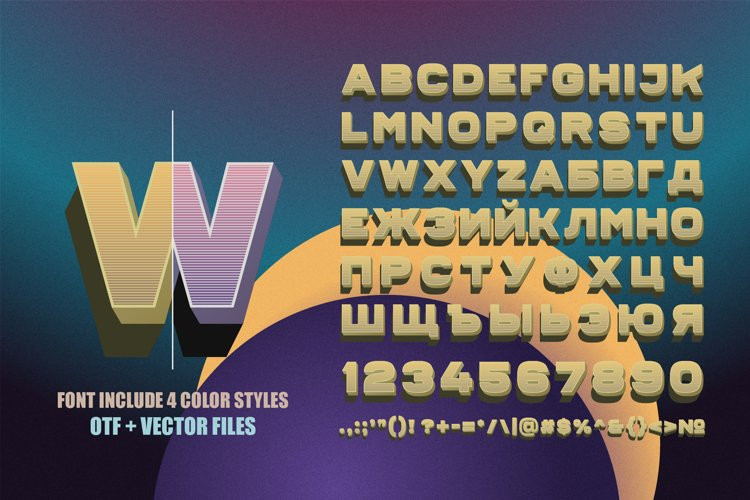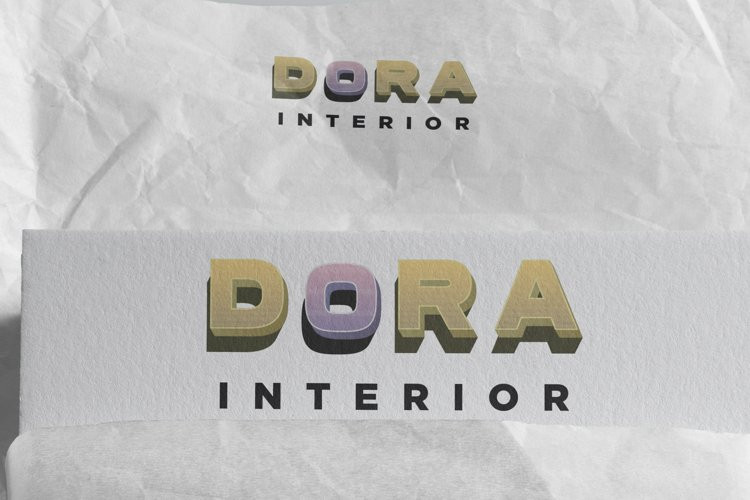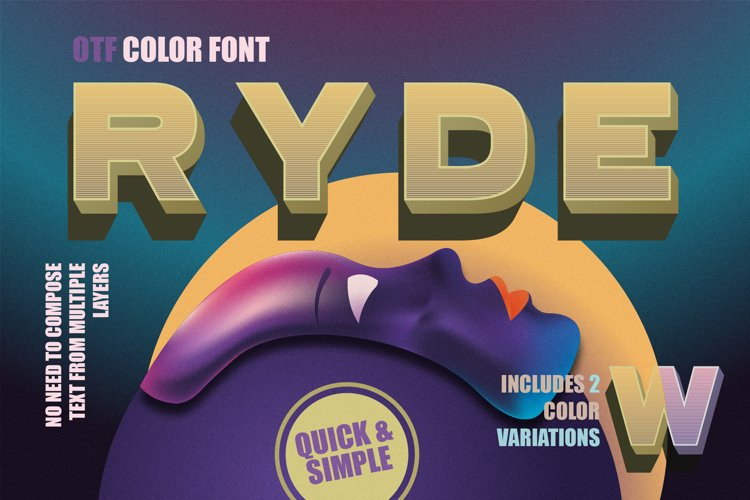
Ryde Font
Ryde FontIntroducing the Ryde – uppercase sans serif font.
This is a brand, stylish, expressive and cool font ready to give your design a unique look.